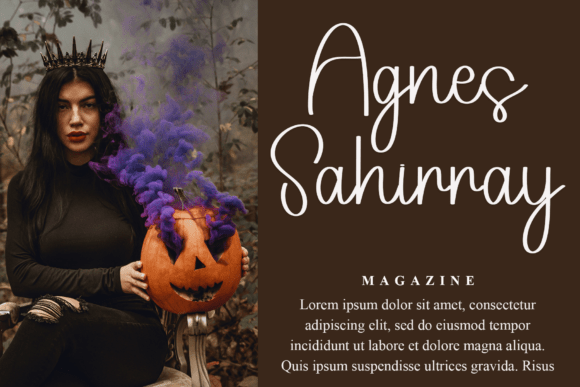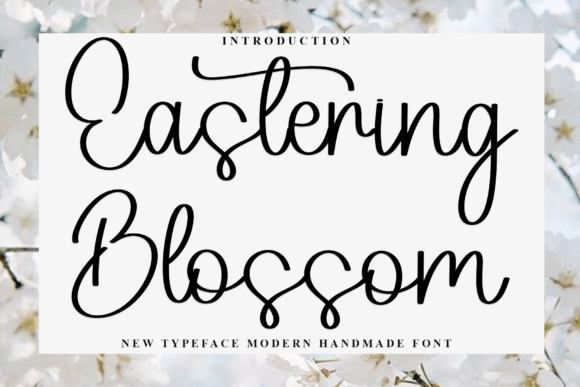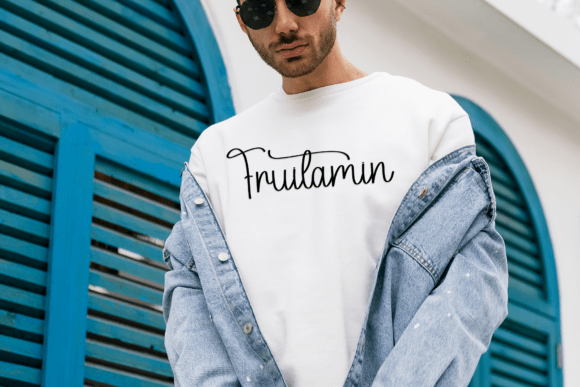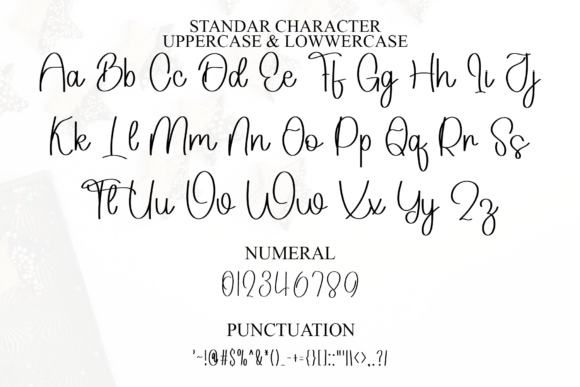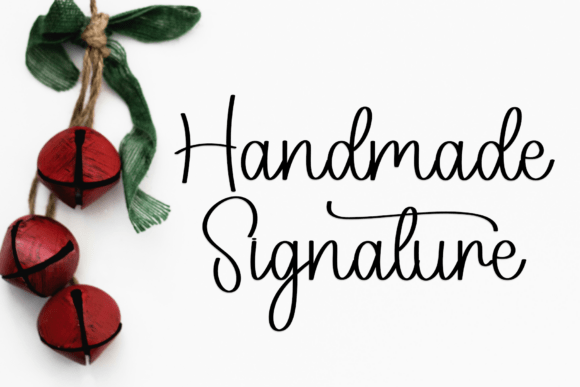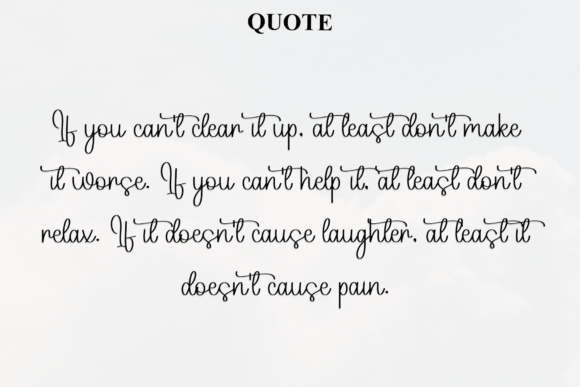
Introduction to Eastering Blossom Font
As a designer, there’s nothing quite like the feeling of discovering a new font that sparks your creativity. For me, it’s the moment when a typeface speaks to the essence of a project and elevates it to the next level. That’s exactly what happens when you meet the Eastering Blossom Font – a stunning, handmade font that captures the delicate charm of spring.
With its soft, romantic touch and elegant monoline strokes, this typeface is a game-changer for any creative project. Whether you’re designing spring wedding stationery, floral shop branding, or Easter cards, the Eastering Blossom Font brings a sense of handcrafted sincerity that’s hard to resist. Its versatility and high-quality design make it an invaluable resource for designers looking to add a touch of whimsy and sophistication to their work.
Key Features of Eastering Blossom Font
- High-quality, hand-drawn design ideal for creative projects and Easter-themed illustrations
- Unique, whimsical style featuring blossoming flowers and Easter-themed elements, perfect for adding a touch of springtime magic to designs
Honest Review: Eastering Blossom Font
I recently came across the Eastering Blossom Font, and I must say it’s a delightful addition to any design project. The high-quality font is perfect for those looking to add a touch of whimsy and elegance to their creative work.
- ✨ The font is incredibly versatile and can be used for a wide range of design projects, from greeting cards to wedding invitations.
- ⚠️ Some users may find the font’s aesthetic to be too cursive or ornate for certain design projects.
Overall, I’m impressed with the Eastering Blossom Font. Its unique design and high-quality construction make it a valuable resource for designers looking to add a touch of creativity to their projects. Whether you’re working on a personal or commercial project, this font is definitely worth checking out.
Eastering Blossom Font
Tips for Getting the Most Out of Eastering Blossom Font
To get the most out of the Eastering Blossom Font, use it in combination with other design elements, such as graphics and images. Experiment with different font sizes and styles to create a unique and eye-catching design.
The Eastering Blossom Font is perfect for a variety of creative projects, including:
- Birthday party decorations and invitations
- Floral-themed designs and graphics
- Stationery and greeting cards